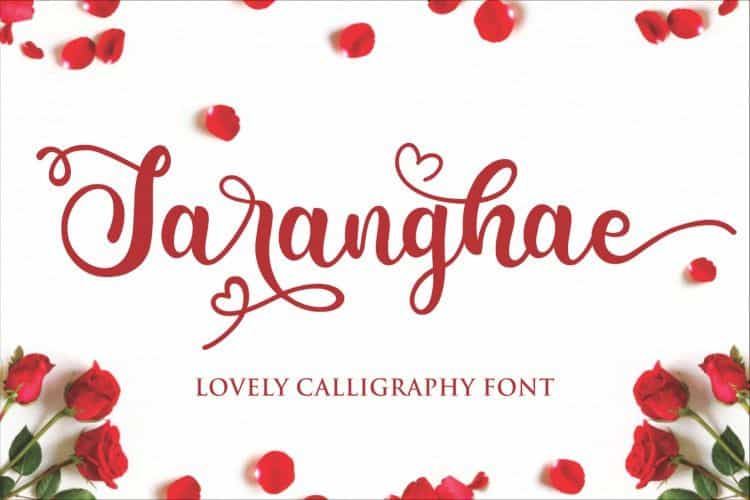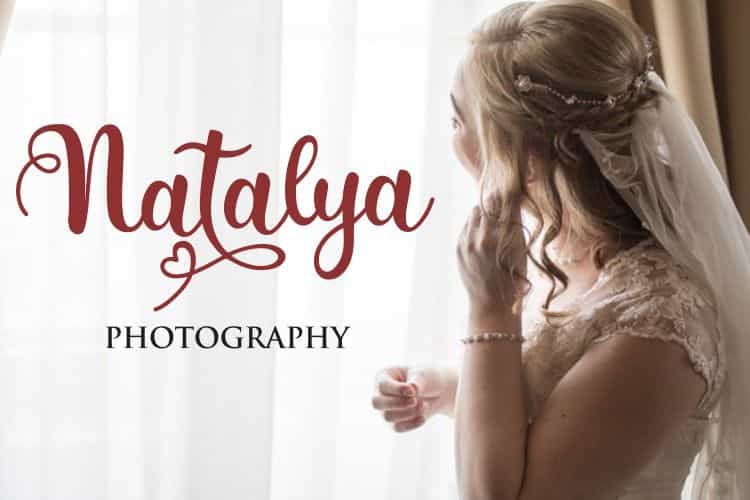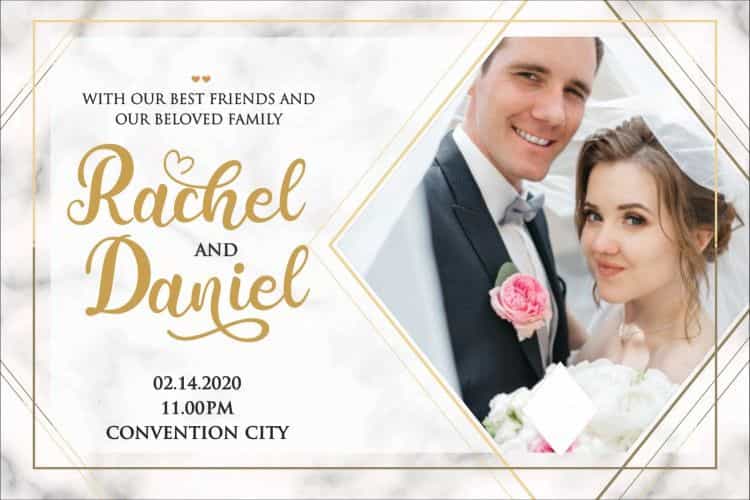
Saranghae is a romantic, modern calligraphy font with beautiful accents and unique style which will perfectly suit your branding design. Nowadays calligraphy is modernized and has a lot of variations. This is an opentype for sure! It is intelligent and at the same time it corresponds to your desires!